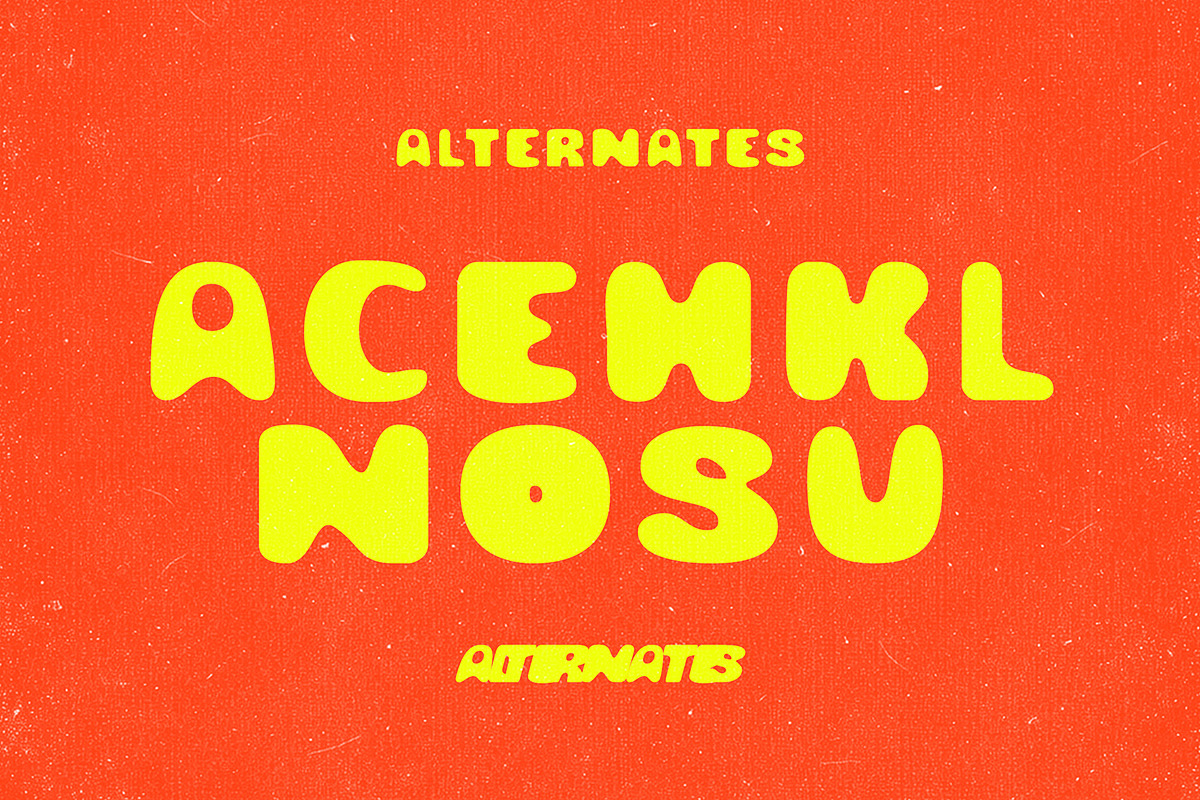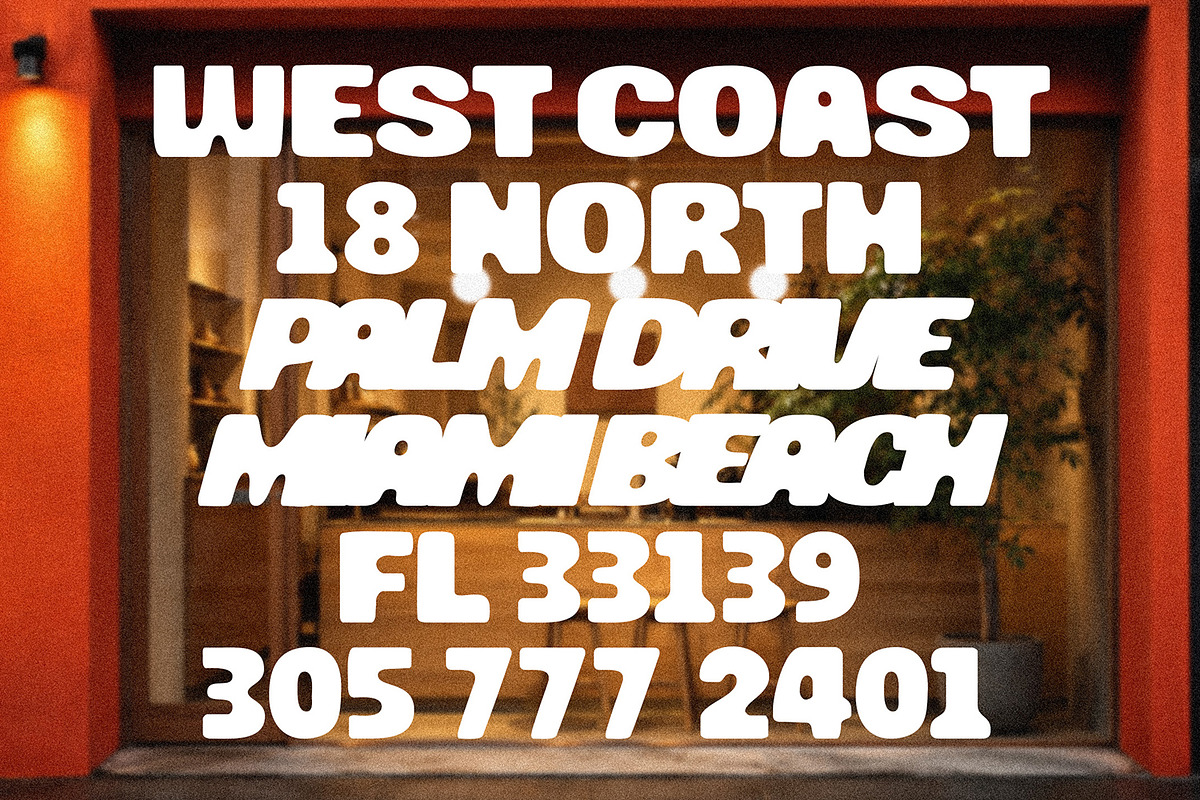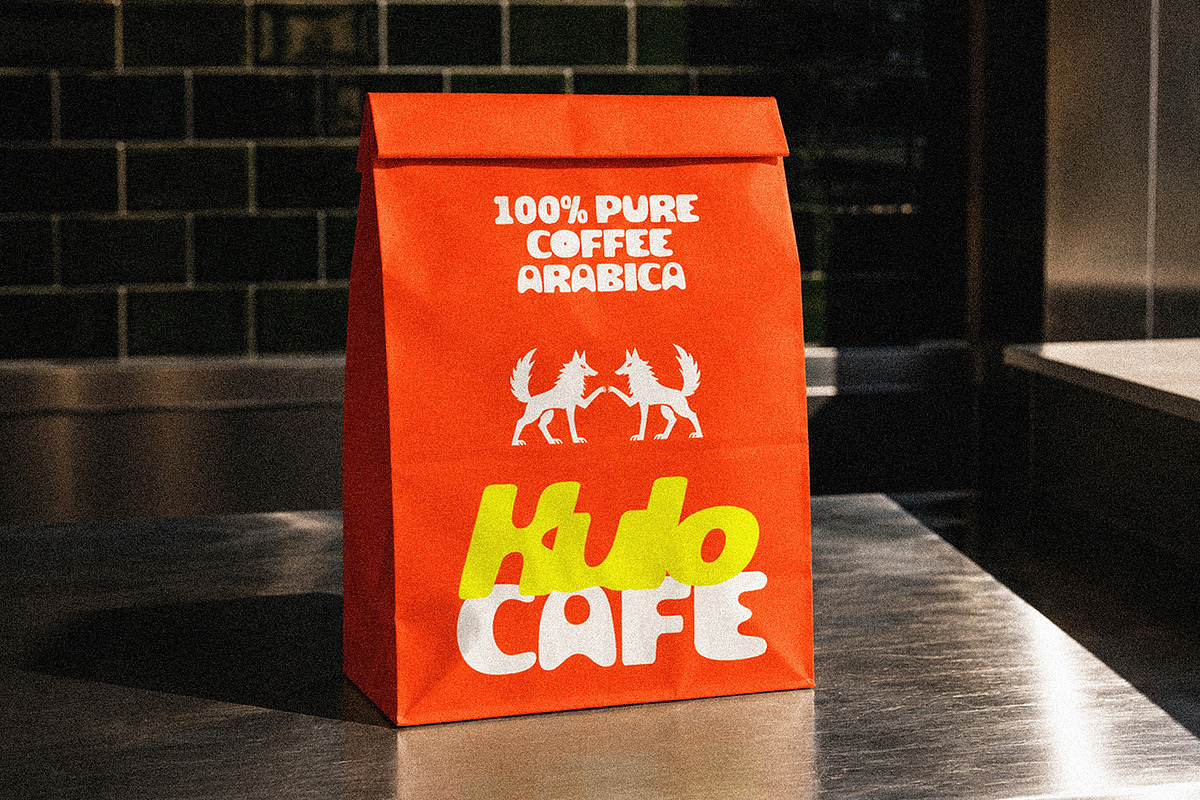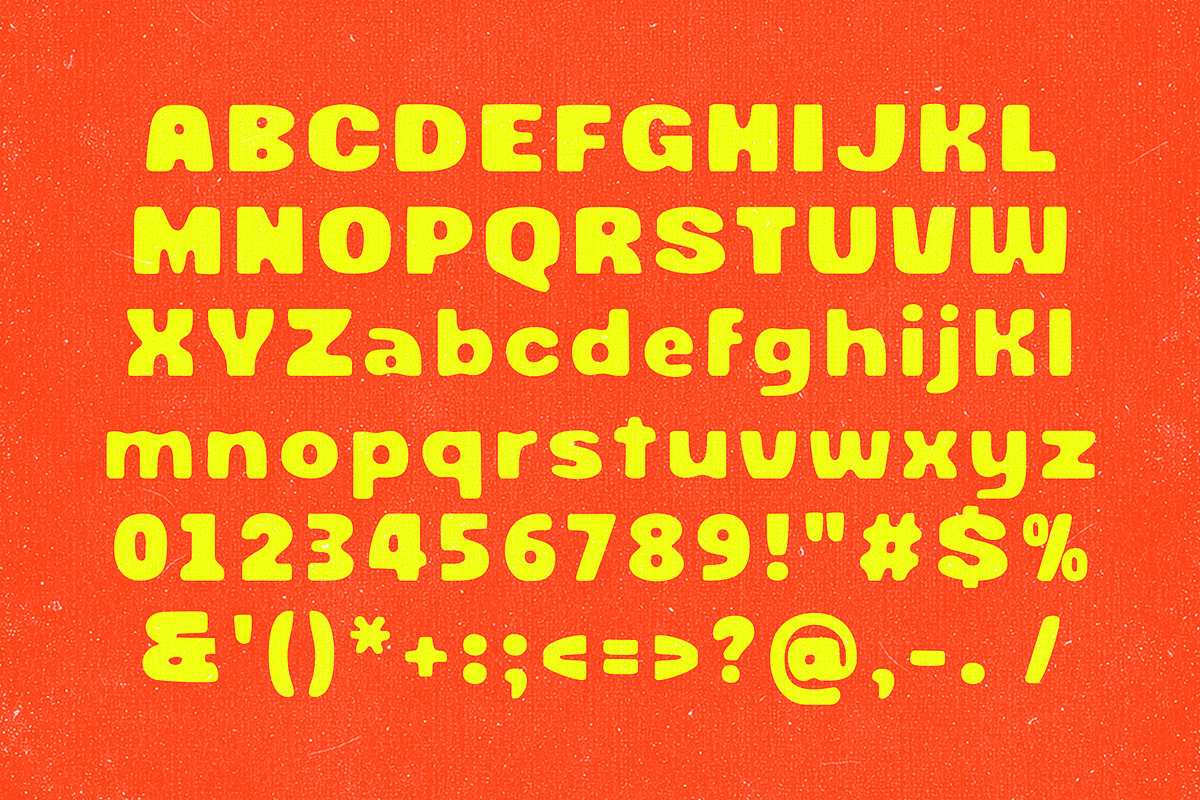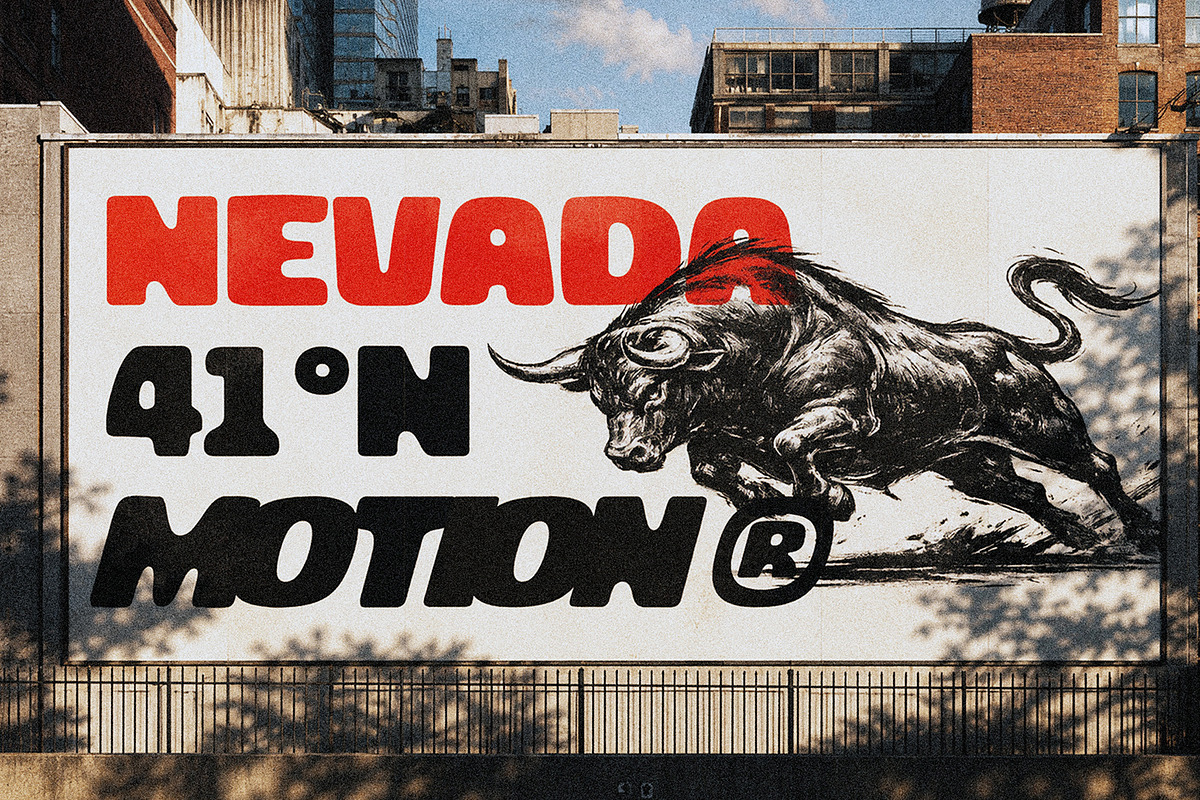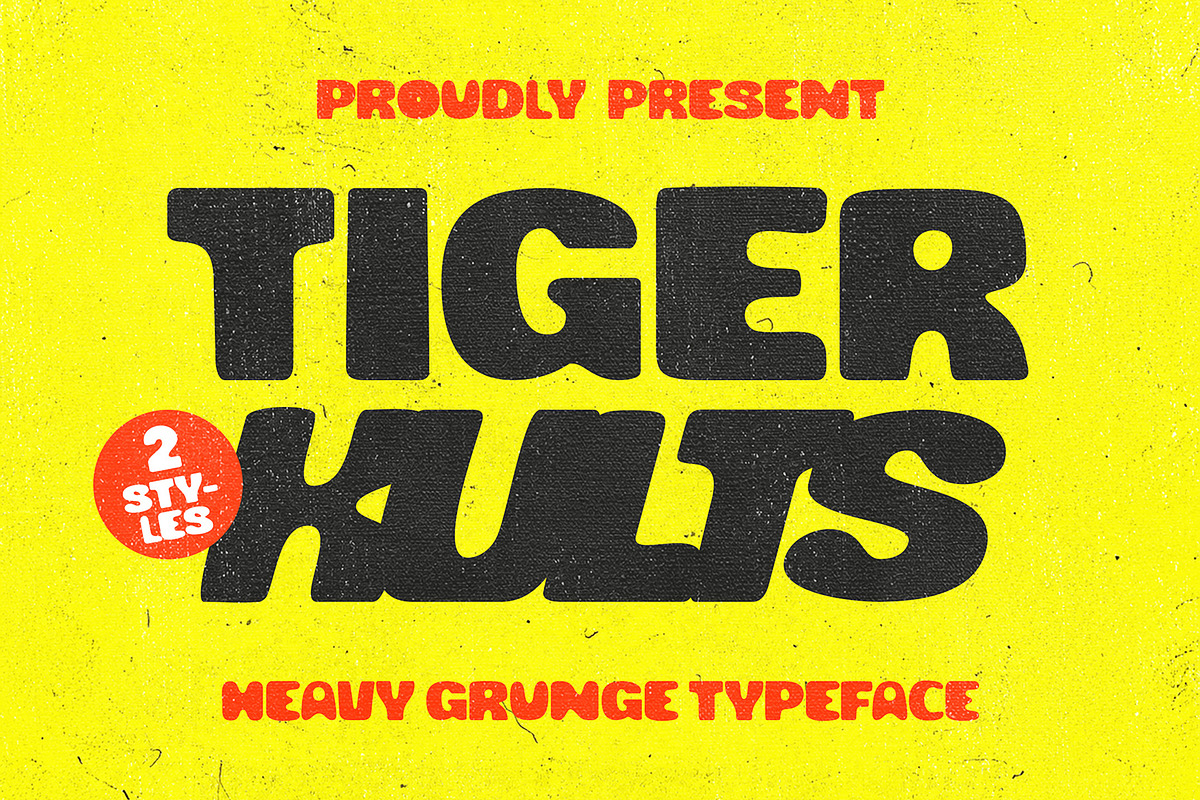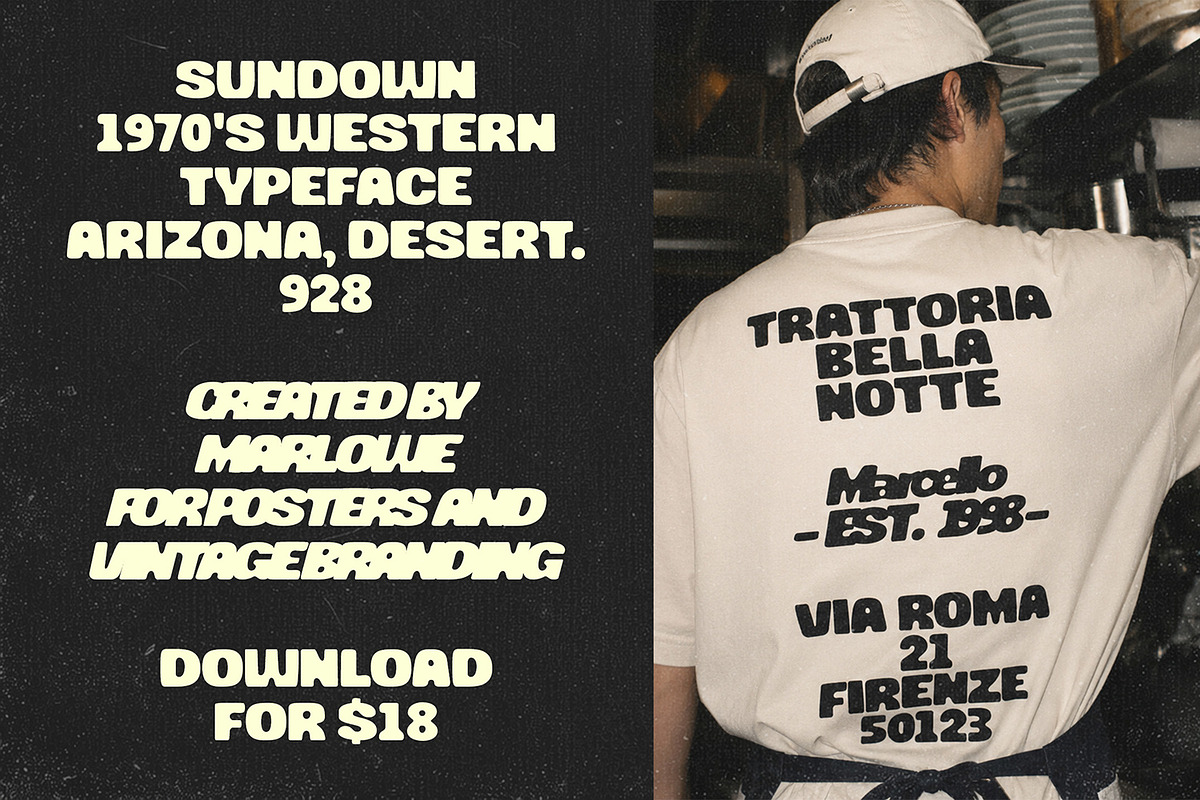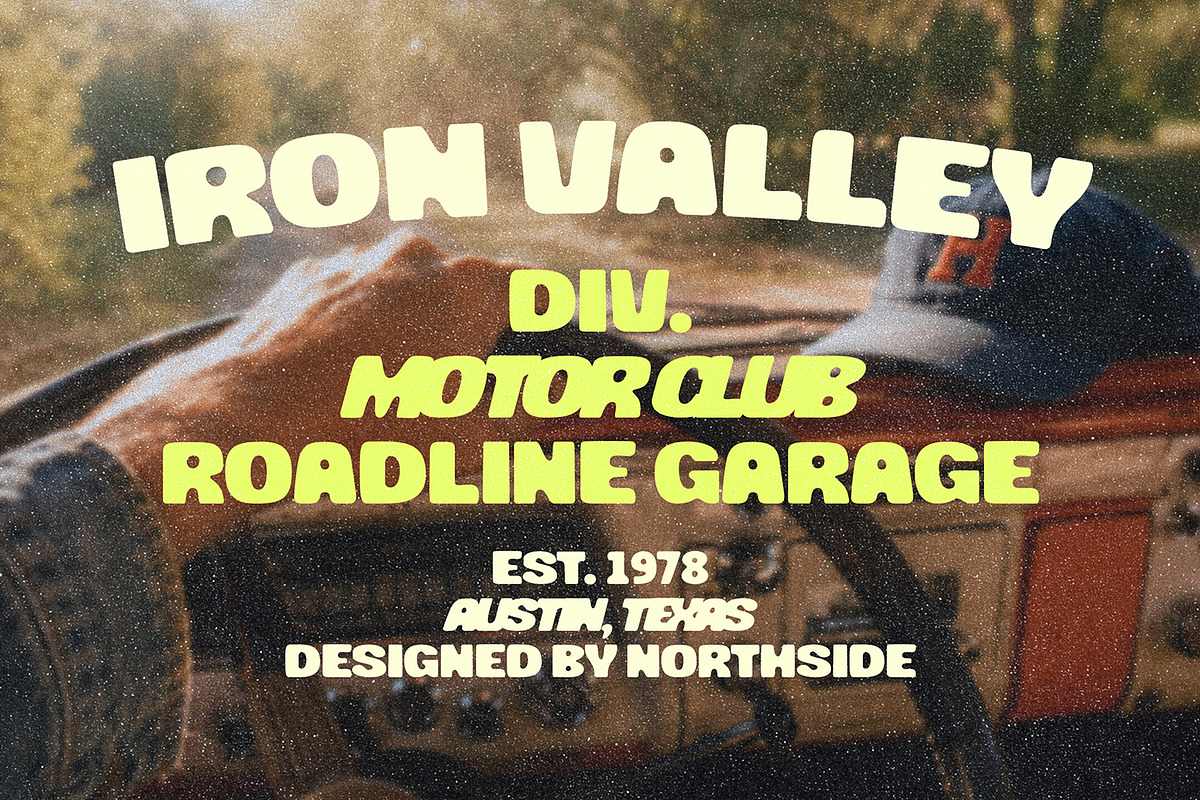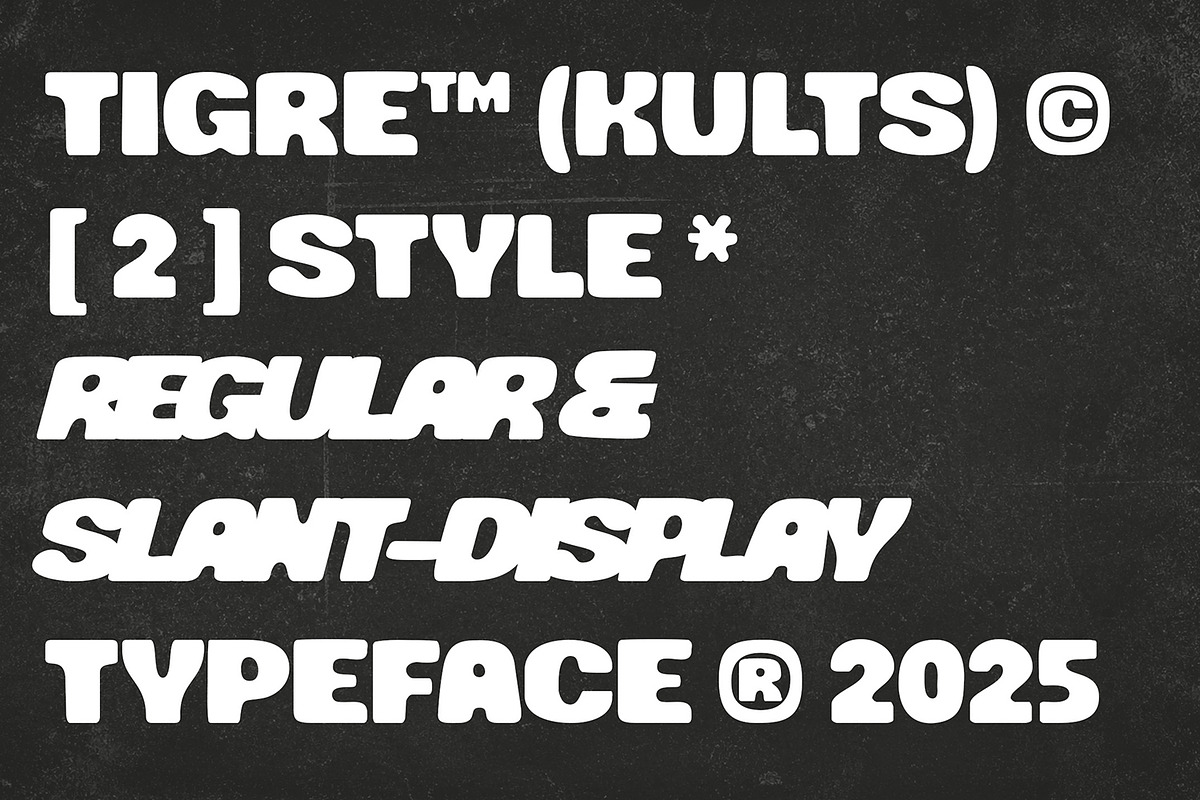
Tiger Kults – Bold Heavy Grunge
Make a roaring statement in your layouts with Tiger Kults! This heavy grunge display typeface features an ultra-bold silhouette packed with a rugged, distressed texture that instantly captures a rebellious retro vibe. Characterized by its massive weight, tight spacing, and organic grit, this font is engineered to dominate any canvas it steps onto.
Tiger Kults comes loaded with 2 distinct styles, giving you the flexibility to switch between or layer different structural aesthetics. It is the ultimate choice for creators looking to inject immediate action, high contrast, and a bold, textured personality into modern display designs.
Key Font Features:
- 2 Versatile Styles: Preconfigured with two distinct variants to adapt effortlessly to your creative layout requirements.
- Ultra-Heavy Display Weight: Massive, chunky letterforms designed specifically for maximum impact in titles and headlines.
- Built-in Grunge Texture: Features a high-quality, pre-distressed grainy texture that saves time and adds a realistic vintage feel.
- Global Language Support: Engineered with a wide glyph set to smoothly accommodate various international languages.
Ideal For:
- Creative Packaging Design: Gives a bold, rustic, or industrial identity to craft beverages and artisanal goods.
- Music & Event Graphics: Perfect for rock festival banners, independent zine headers, gig posters, and album art covers.
- Social Media & Content Creation: Ideal for high-contrast YouTube thumbnails, streaming overlays, and bold quote graphics.